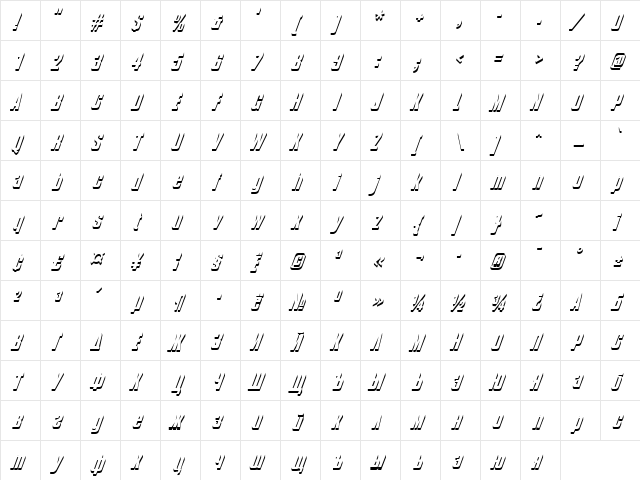
CompoShadow Normal
Design Context for CompoShadow Typeface
CompoShadow brings ornamental detail and strong personality to headlines and identities, where visual impact matters more than quiet functionality.
Font Pairing: Pair with a clean neutral sans-serif for body copy to let CompoShadow's character lead without overwhelming the composition.
Pro Tip: Treat CompoShadow as the centrepiece of your typographic hierarchy. One strong heading set in a decorative face can carry an entire layout.